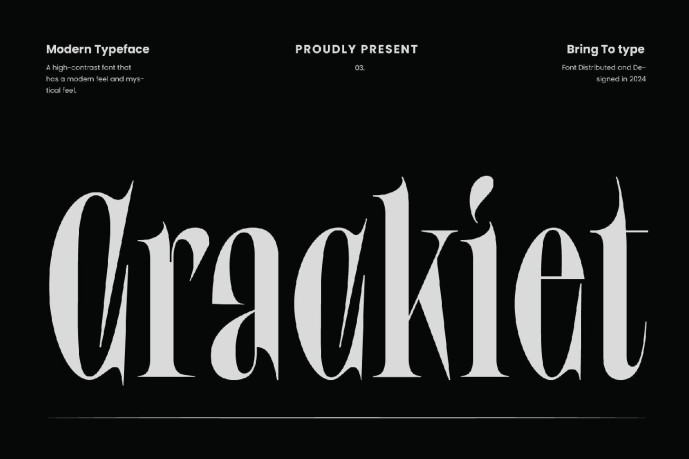
Crackiet Serif Font
Crackiet Serif Font is a high-contrast serif typeface that merges modern sophistication with a mysterious charm. With its tall, refined strokes and sharp transitions, Crackiet creates a bold visual rhythm that feels both elegant and unconventional—perfect for titles, branding, and artistic layouts.
Refined, Dramatic, and Expressive
Designed with a sense of grandeur and contrast, Crackiet shines in projects that demand character and presence. Its graceful serifs and sculpted letterforms evoke luxury and mystique, making it ideal for editorial design, fashion, or cinematic posters.
A Font for Modern Storytelling
Crackiet reimagines classic serif traditions through a modern lens. Its sleek structure and high contrast give it a unique voice—commanding yet poetic, bold yet sophisticated.
Enchant Your Design with Crackiet